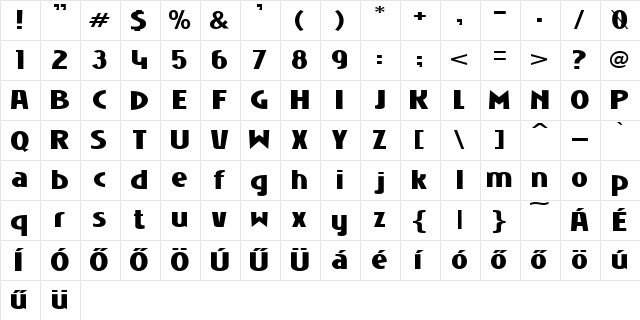
Niobium Black
Design Context for Niobium Typeface
Niobium offers clean, dependable letterforms without strong stylistic allegiance, making it a practical choice for designers who need flexibility.